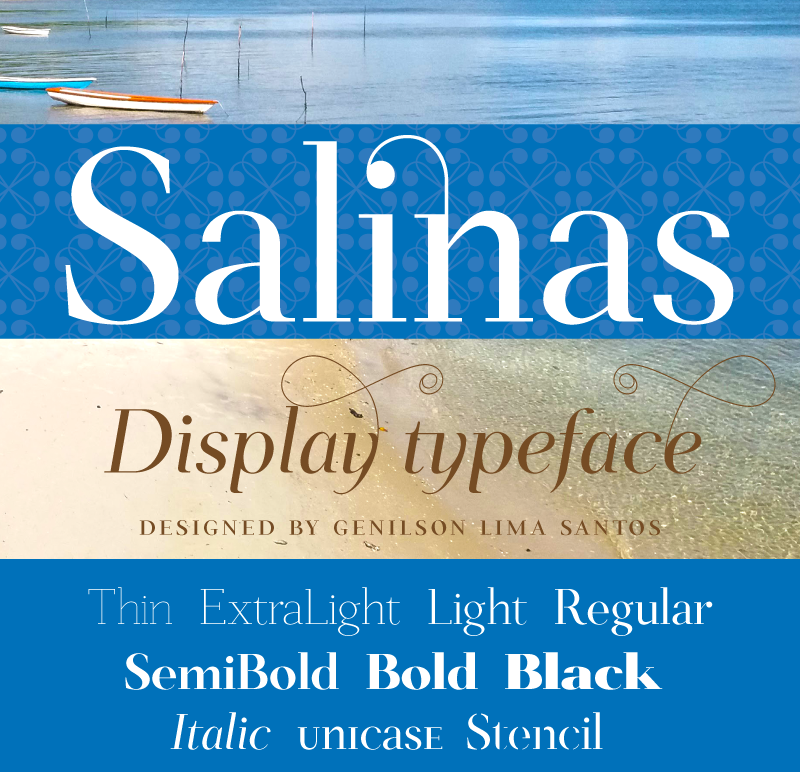
Font name: | Salinas |
Author: | Genilson L. Santos |
Note by Genilson L. Santos | |
Salinas is an elegant high contrast serif font. It was designed for use in display sizes. Consists of 10 variants, giving it flexibility for display need. It is perfect for logos, headings, wedding invitation, t-shirt, letterhead, news, posters, magazines etc. It has a complete latin character set, ligatures, swashes, initial and terminal forms, accented glyphs and OpenType features. Each font contains 480+ glyphs, supporting more than 200 languages. DEMO VERSION. Please read EULA for more informations. For commercial use you should purchase it here: https://creativemarket.com/GenilsonSantos/780993-Salinas Have a question?: genilson.blacktype@gmail.com |